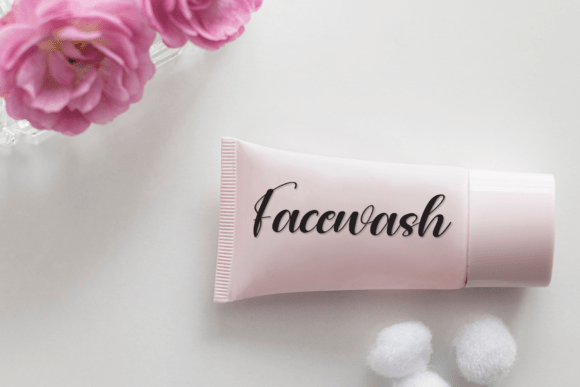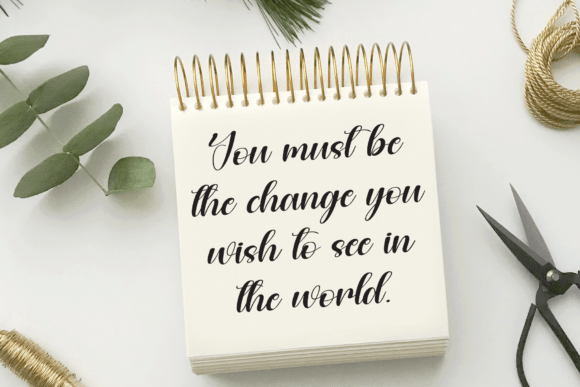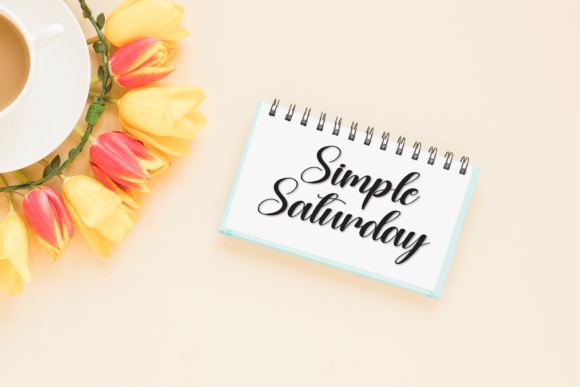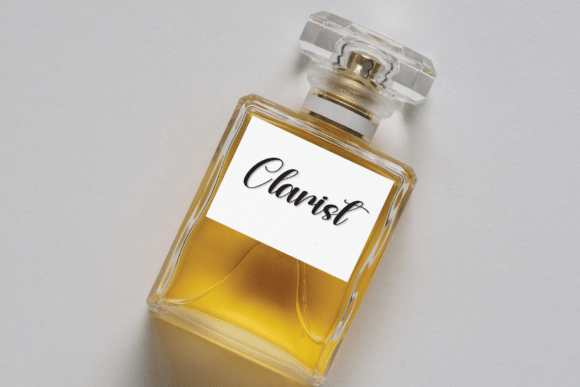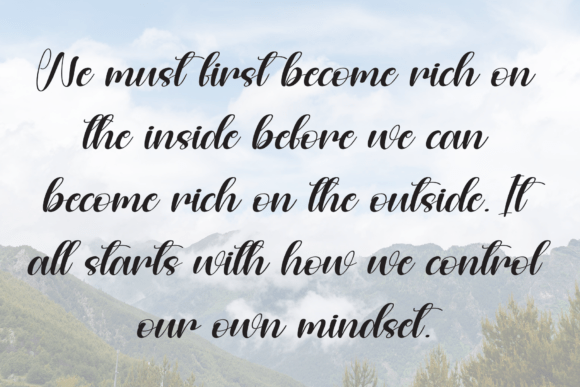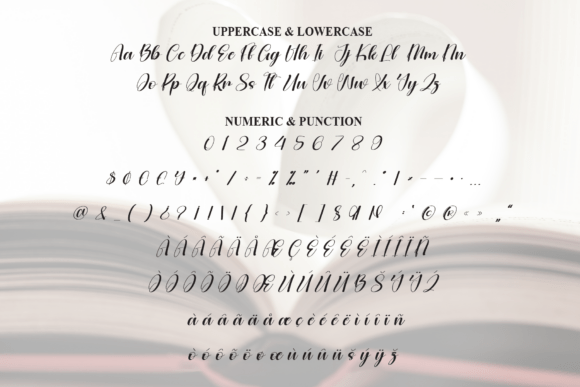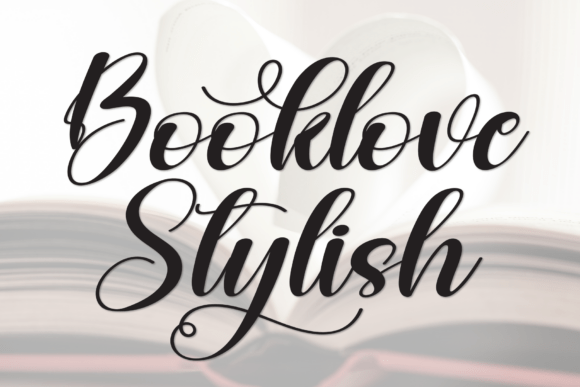
The Art of Typography: Unleashing Your Creativity with Booklove Stylish Font
Have you ever sat in front of a blank canvas, staring at your computer screen, waiting for that perfect idea to strike? The blank page can be intimidating, but it’s in these moments that our creativity shines through. For designers, typography is a vital element that can make or break a project’s aesthetic. That’s why we’re excited to introduce you to the Booklove Stylish Font, a creative product designed to elevate your work and leave a lasting impression.
The Booklove Stylish Font is a versatile tool that’s perfect for a wide range of projects, from wall displays and wedding invitations to social media logos and product packaging. With its stylish letters and easy-to-use interface, this font is a valuable asset for any designer looking to add a touch of elegance and sophistication to their work.
Booklove Stylish Font Key Features
- Resolution: The font is optimized for high-resolution displays, ensuring crisp and clear text rendering on devices with high pixel density.
- Unique Characteristics: Booklove Stylish Font features a unique blend of modern and elegant design elements, making it perfect for creative and artistic projects, such as book covers, posters, and invitations.
Booklove Stylish Font Review
Overall, I was pleasantly surprised by the Booklove Stylish Font. There are some aspects that really shine ✨.
- Unique and elegant design: The font has a sophisticated, vintage feel that would be perfect for book covers, literature, or any design project that requires a touch of elegance.
- Great for body text: The font’s x-height and line spacing make it easy to read, even at smaller sizes.
However, there are a few limitations to consider ⚠️.
- Not suitable for headlines: The font is best used for body text, as its elegance can get lost in larger font sizes.
Overall, I would recommend the Booklove Stylish Font for designers who need a sophisticated, elegant font for body text. While it has some limitations, its unique design and ease of readability make it a great addition to any design project.
Tips for Getting the Most Out of Booklove Stylish Font
Use Booklove Stylish Font to add a touch of elegance and sophistication to your designs. Pair it with complementary fonts to create a visually appealing combination.
Booklove Stylish Font is perfect for:
- Book covers and book-related designs.